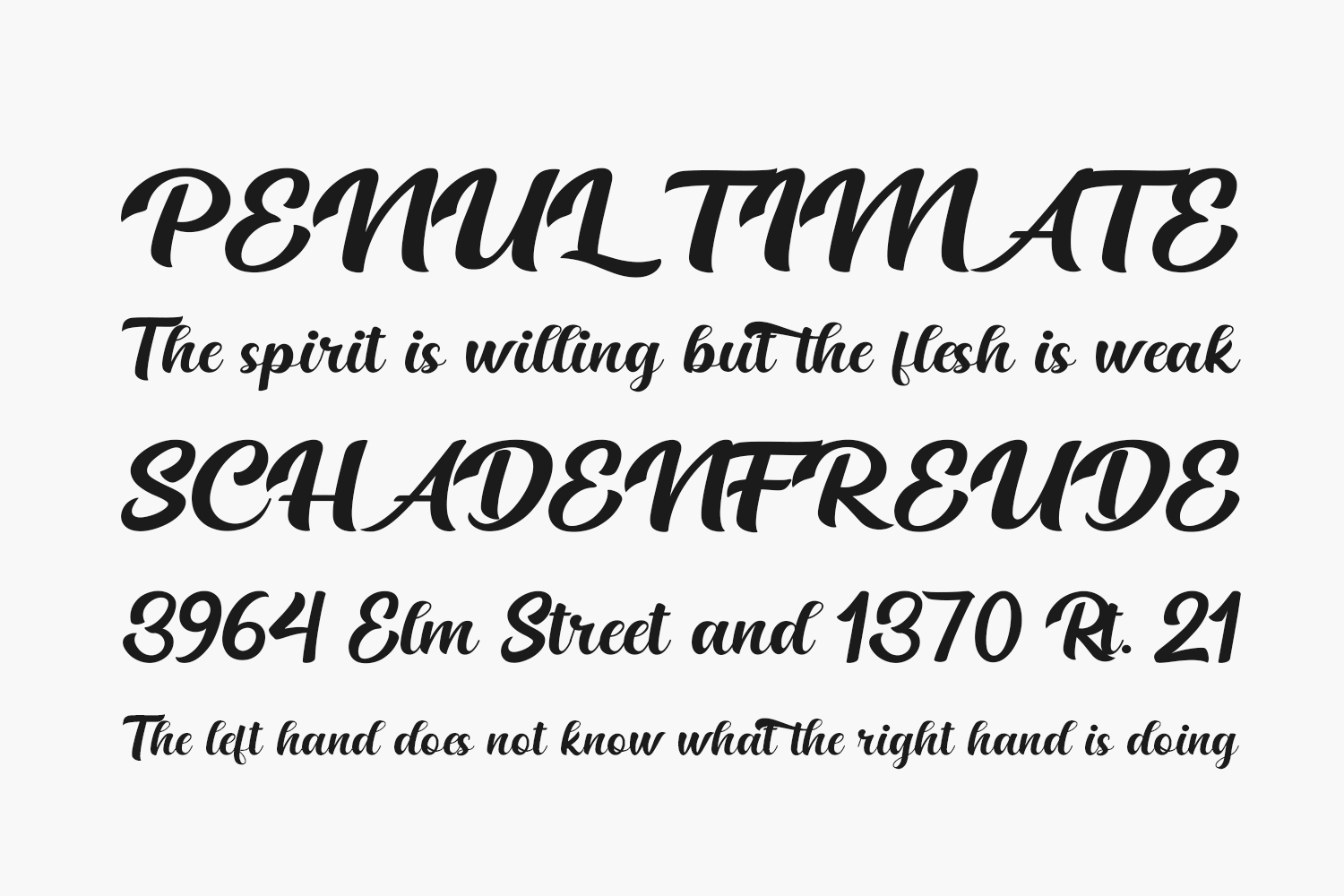
Hamburg Free Font is a beautiful and gorgeous script font. Hamburg Free Font is free for personal use only. Please purchase the full version for commercial use.